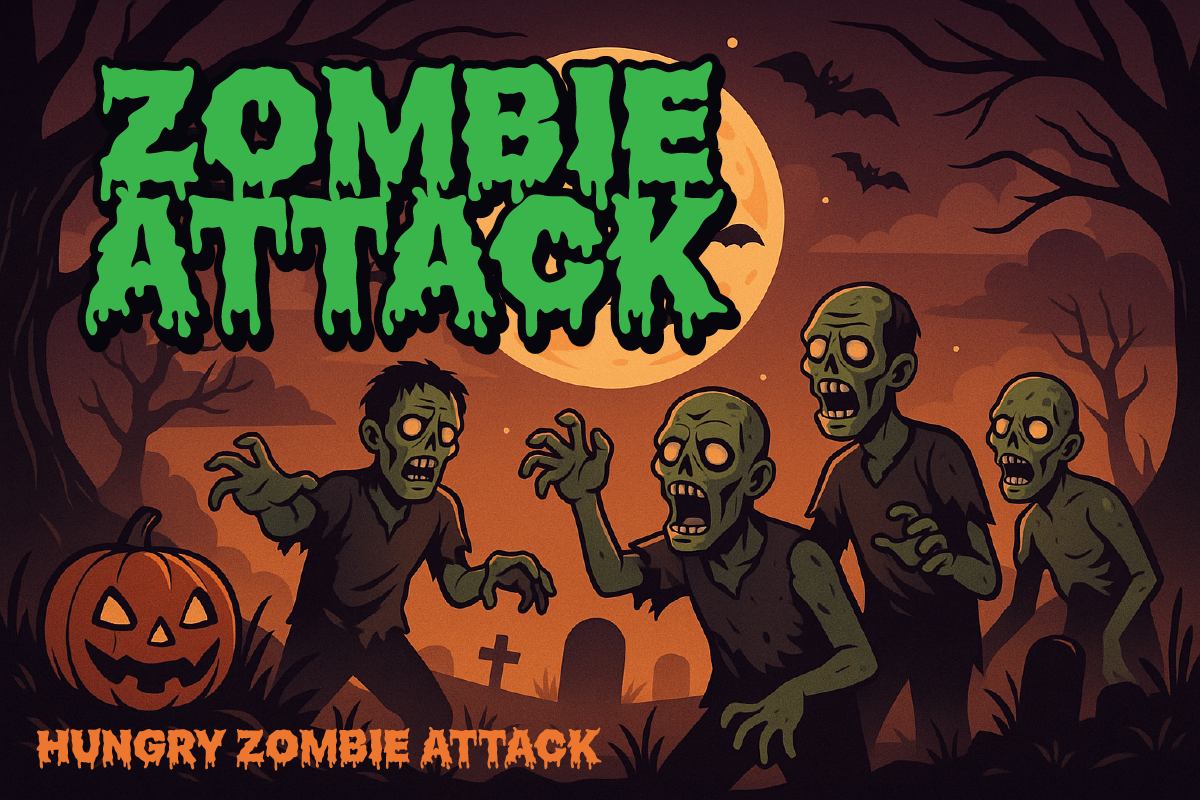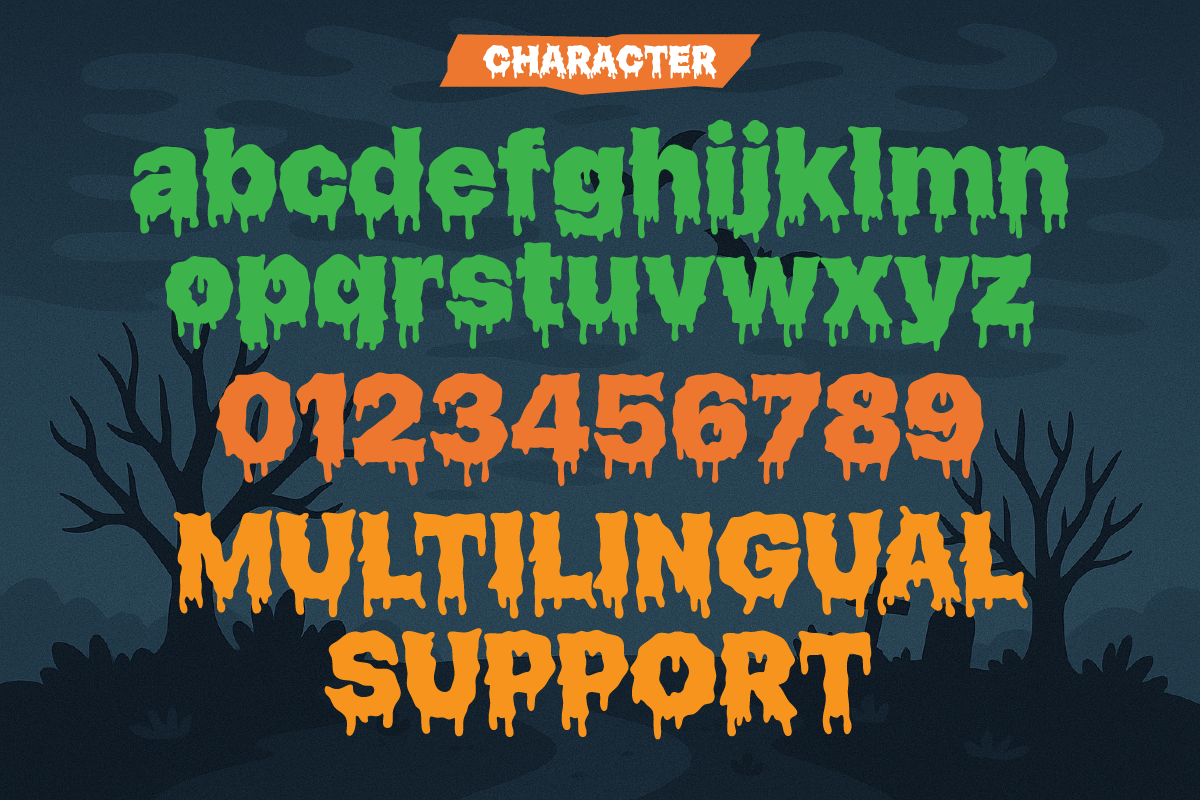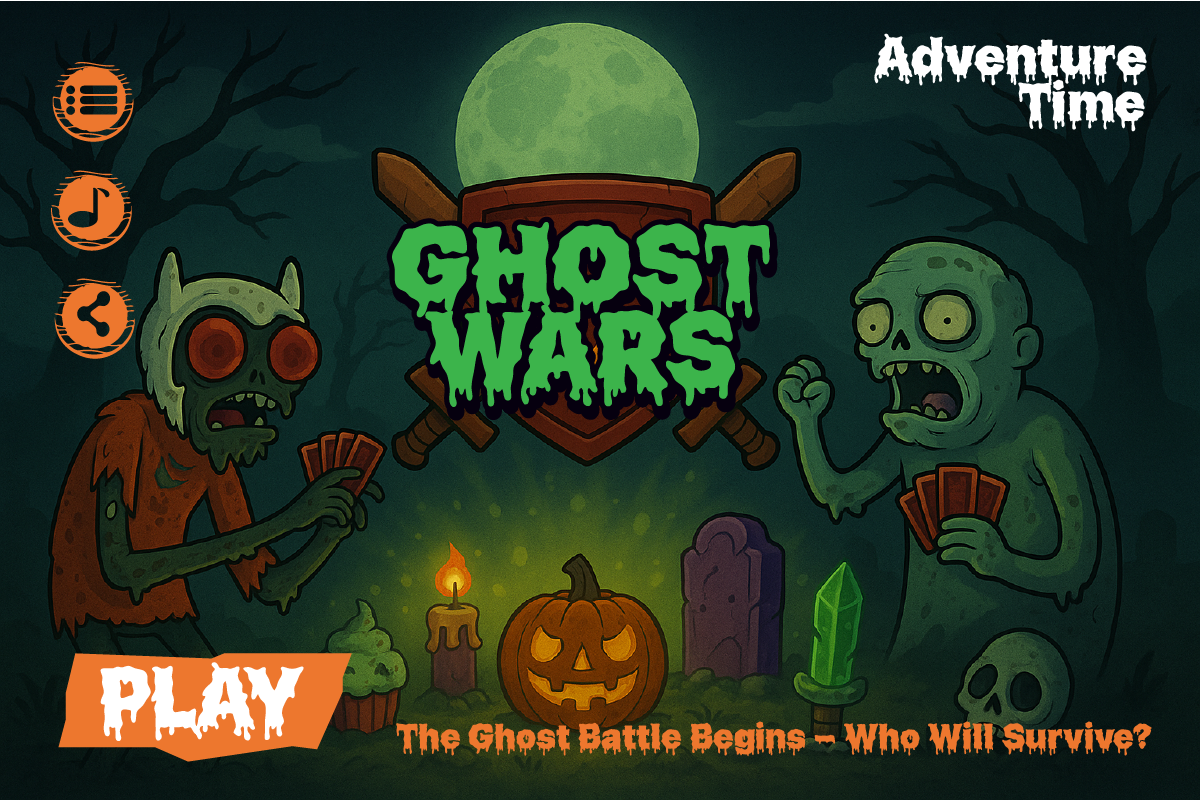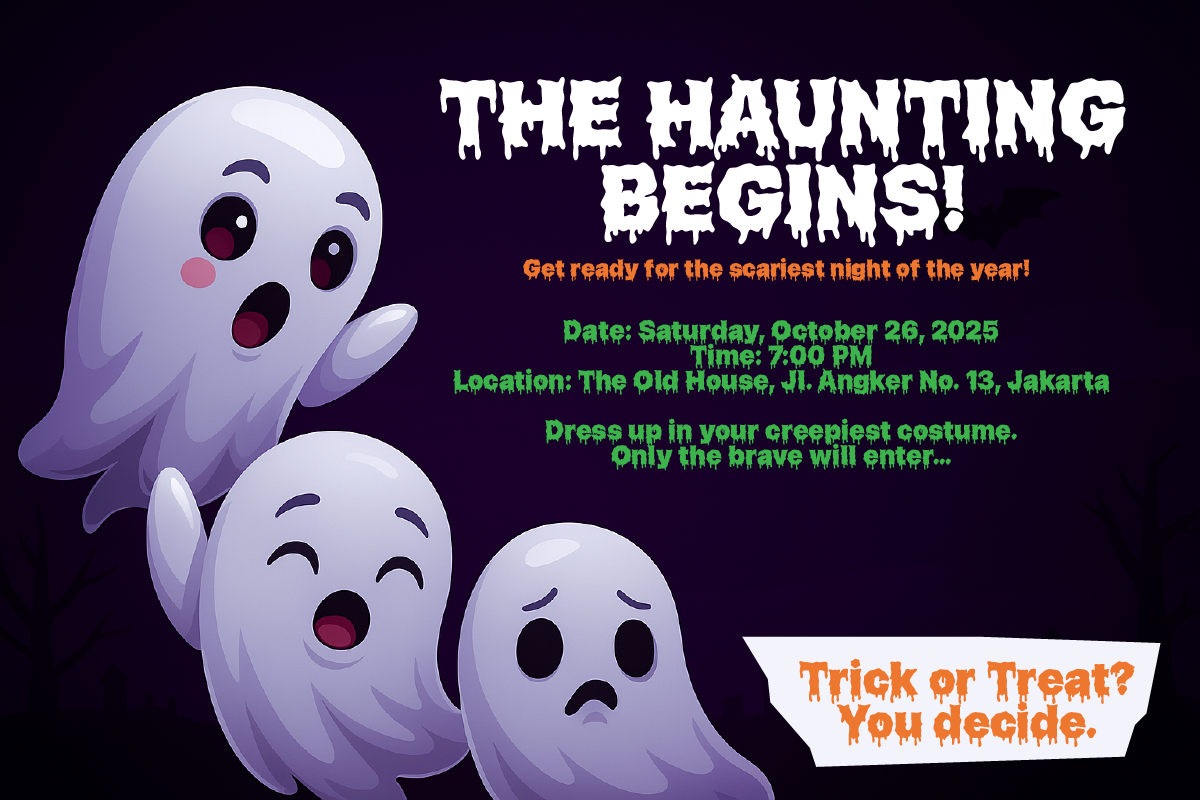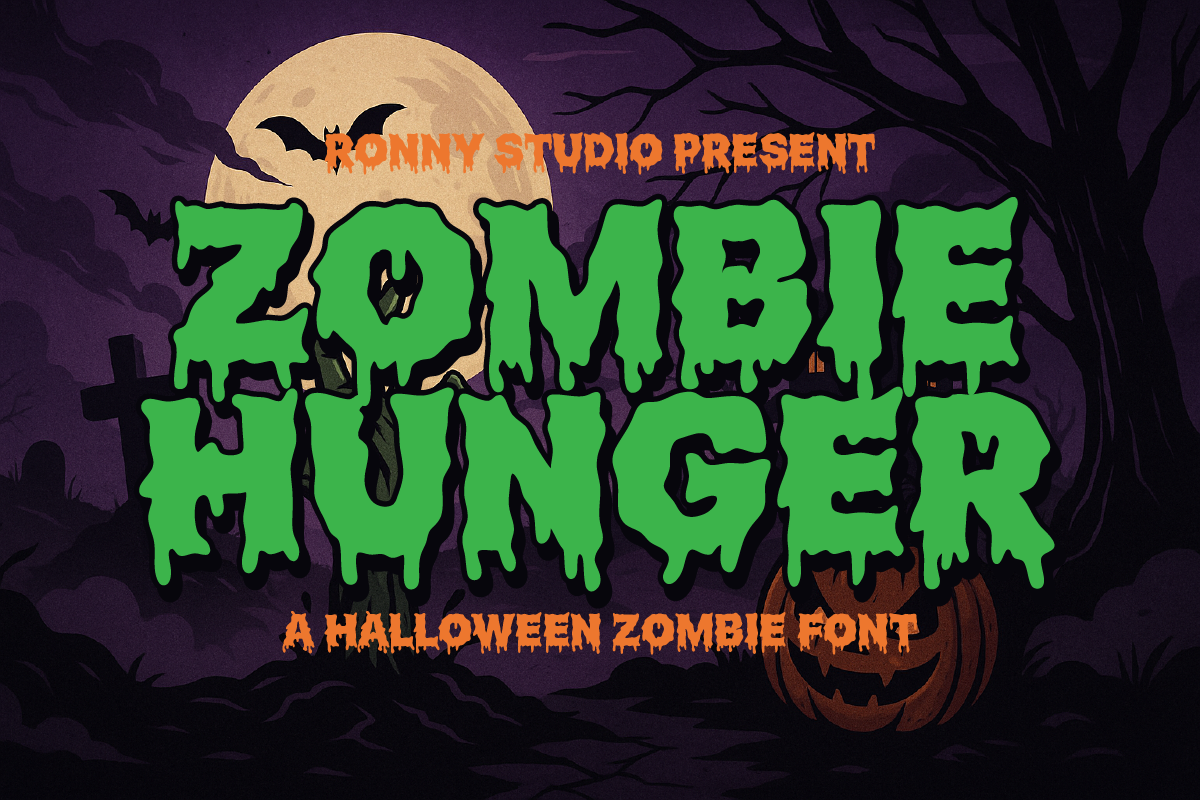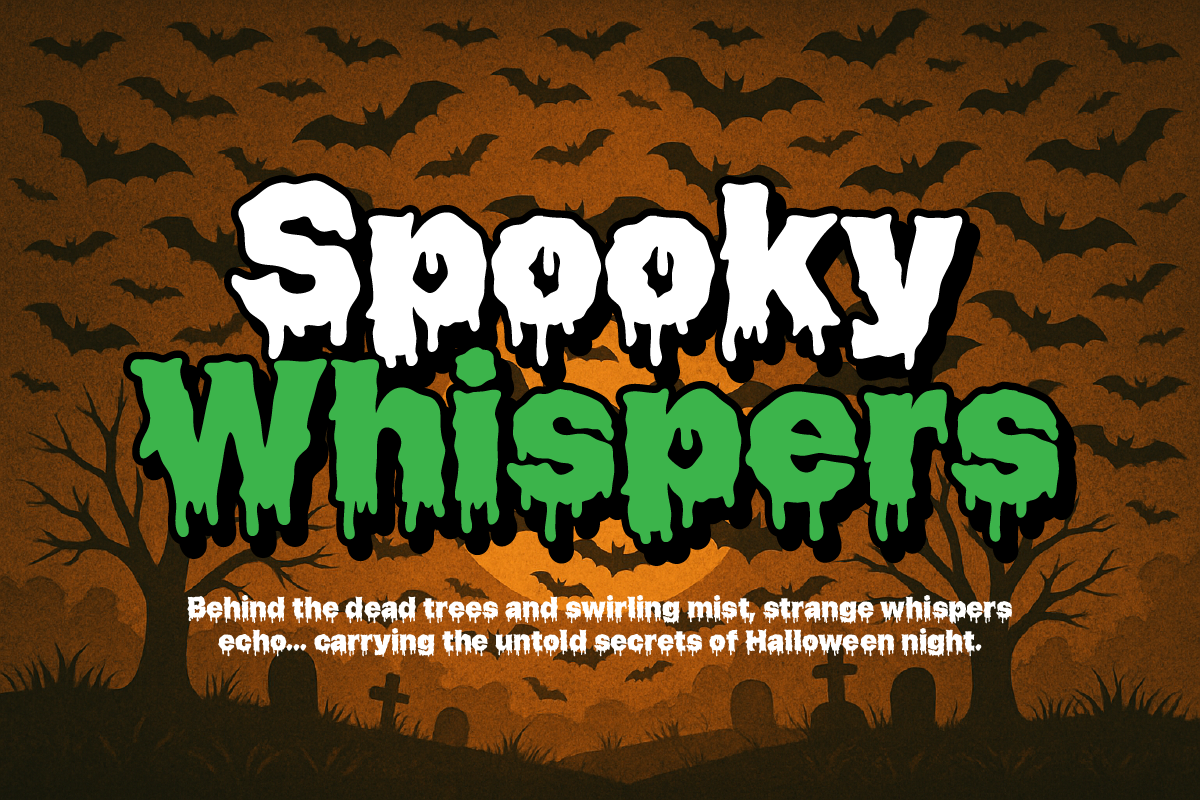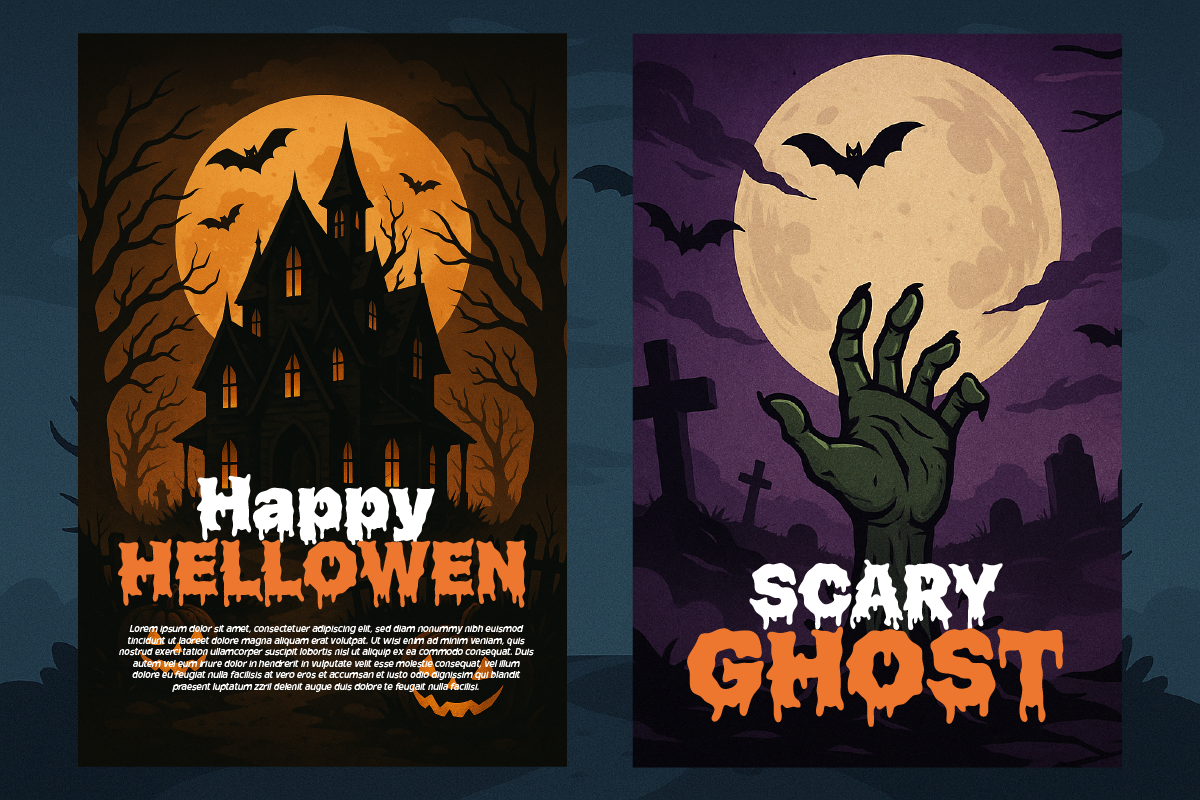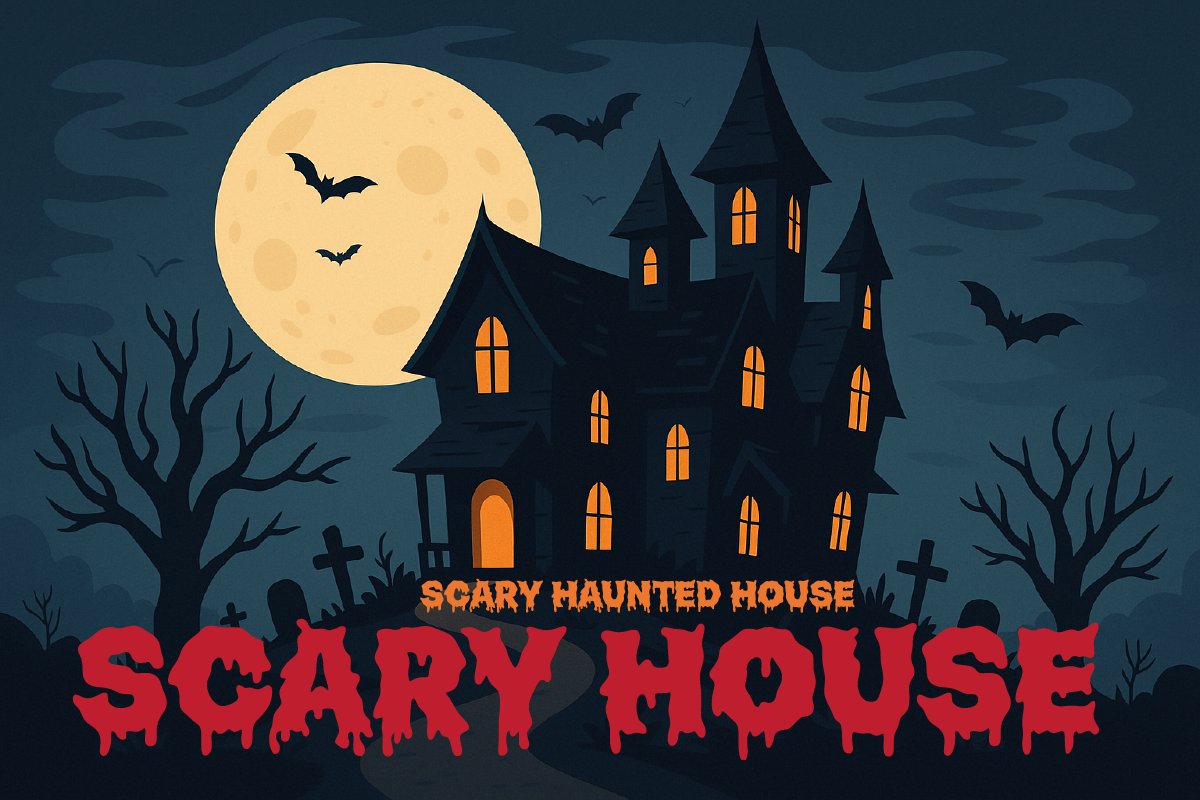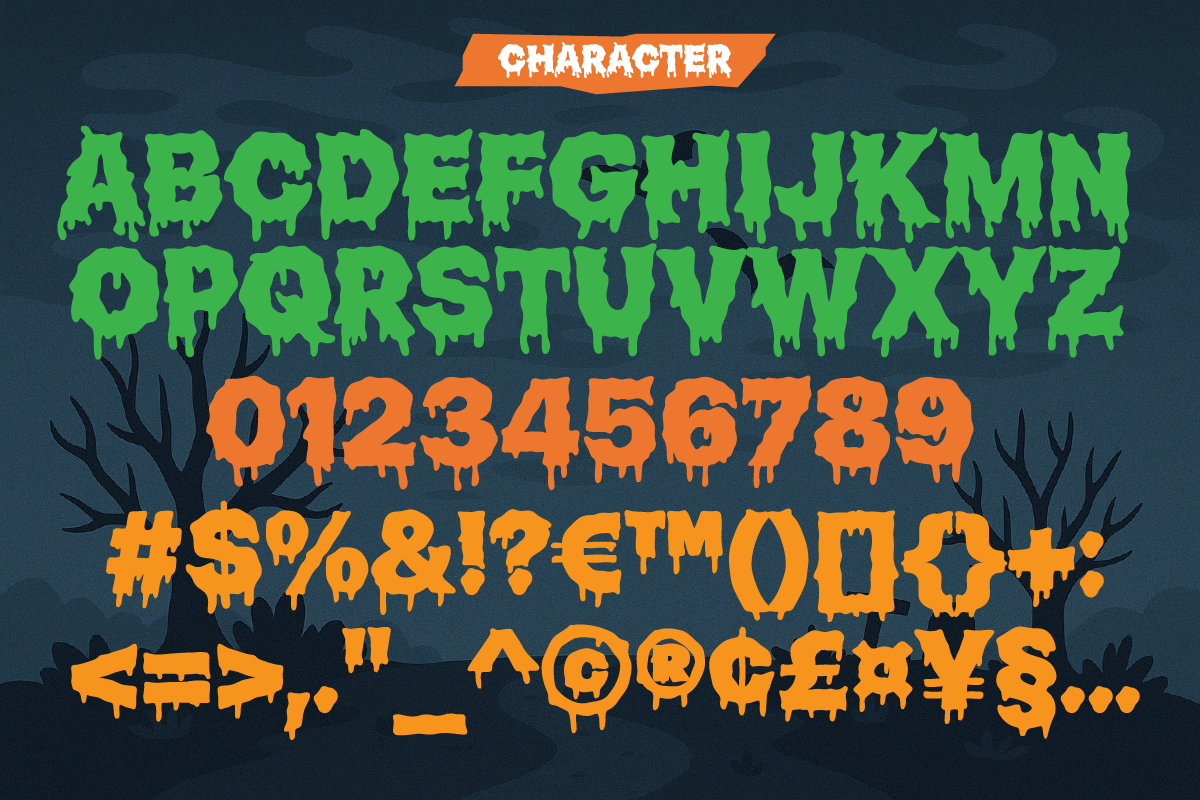
Zombie Hunger Halloween Zombie Font
Zombie Hunger is a spooky and fun display font dripping with horror vibes – perfect for Halloween projects, undead themes, and anything that screams zombie apocalypse! Whether you're crafting gory movie titles or eerie party invitations, this bold and drippy typeface will bring a chilling atmosphere to your designs.
🎃 Ideal For: 💀 Halloween Flyers & Posters 💀 Horror Movie Titles & Game Logos 💀 Scary YouTube Thumbnails & Social Media Posts 💀 Haunted House Signage & Zombie-Themed Events 💀 Trick-or-Treat Merch, T-shirts & More
🎃 Font Features: ✔ Bold, Dripping Letterforms – Designed to look like melting zombie flesh ✔ All-Caps Typeface – With expressive upper-case letters ✔ Spooky Display Style – Stands out in any eerie setting ✔ Web-Ready Files – Includes OTF, TTF, and WOFF formats ✔ Perfect for Print & Digital Use
⚰️ Bring the Undead to Life Crafted for designers who want to summon horror with style, Zombie Hunger is your go-to font for October mayhem, dark comedy, and retro monster themes. With its grotesque, oozing aesthetic, it's sure to terrify and delight!